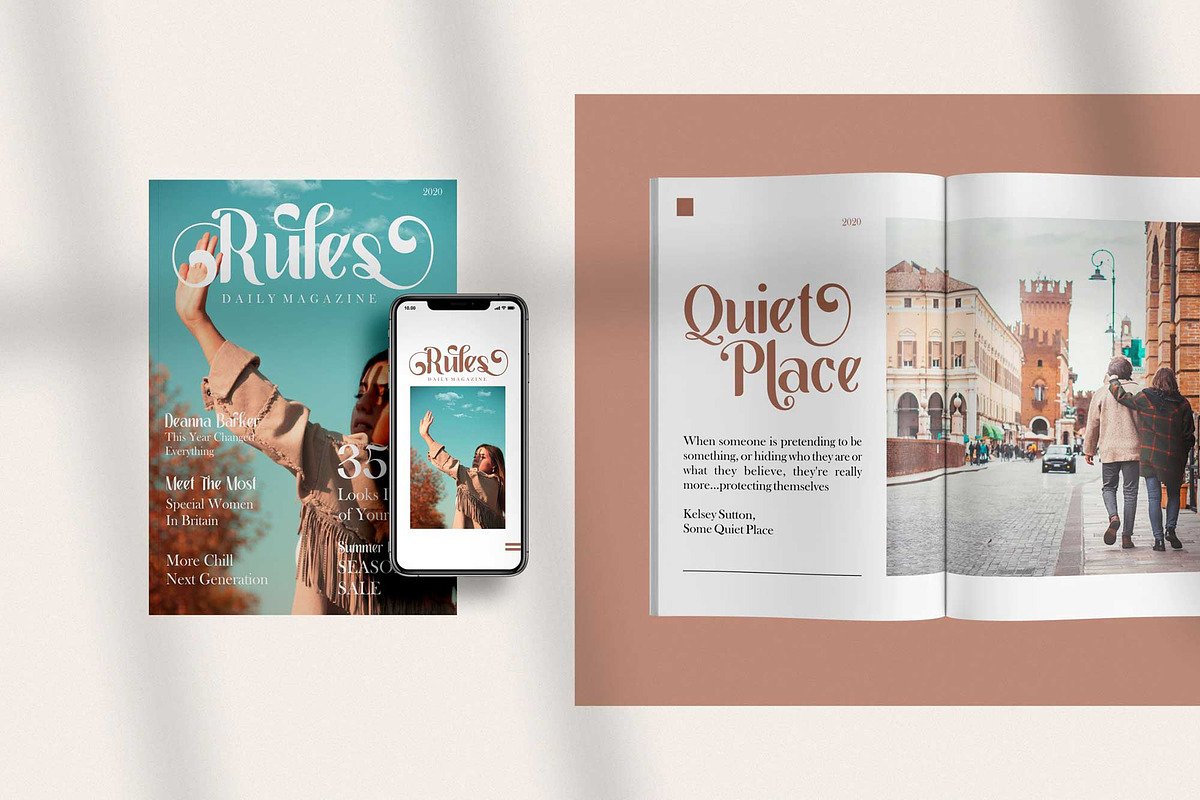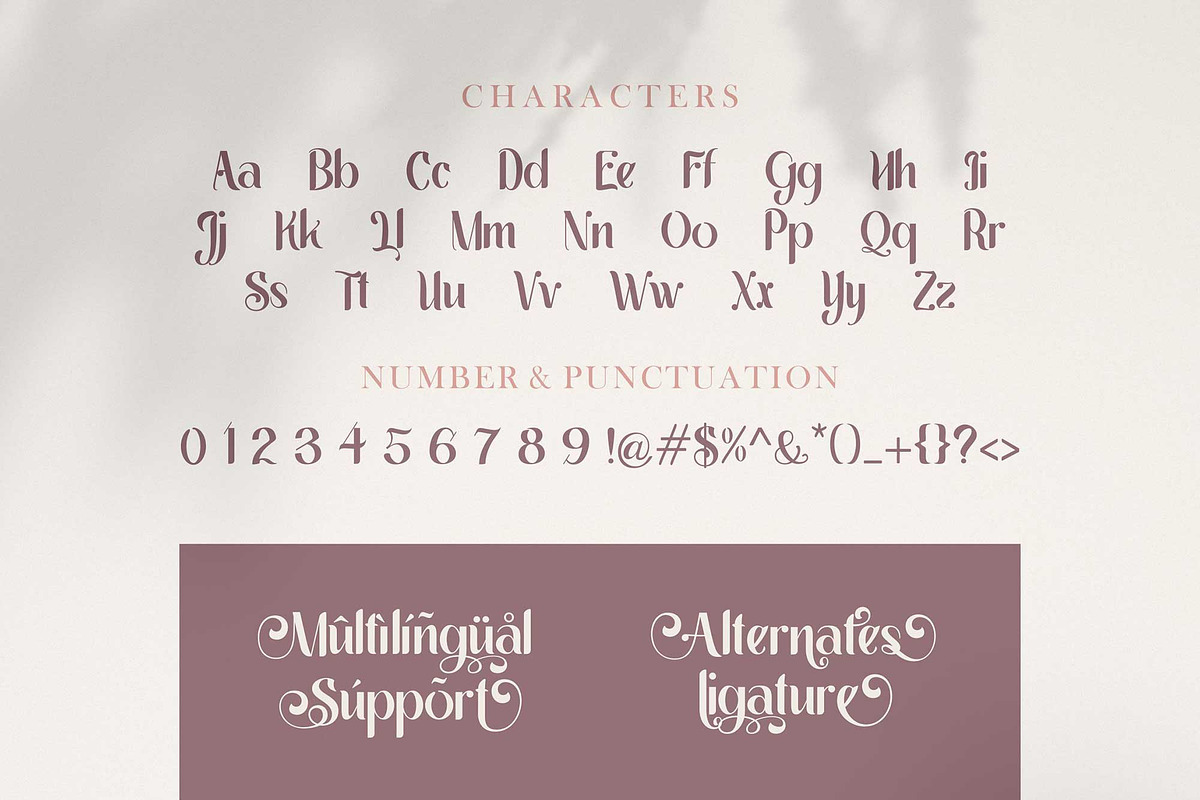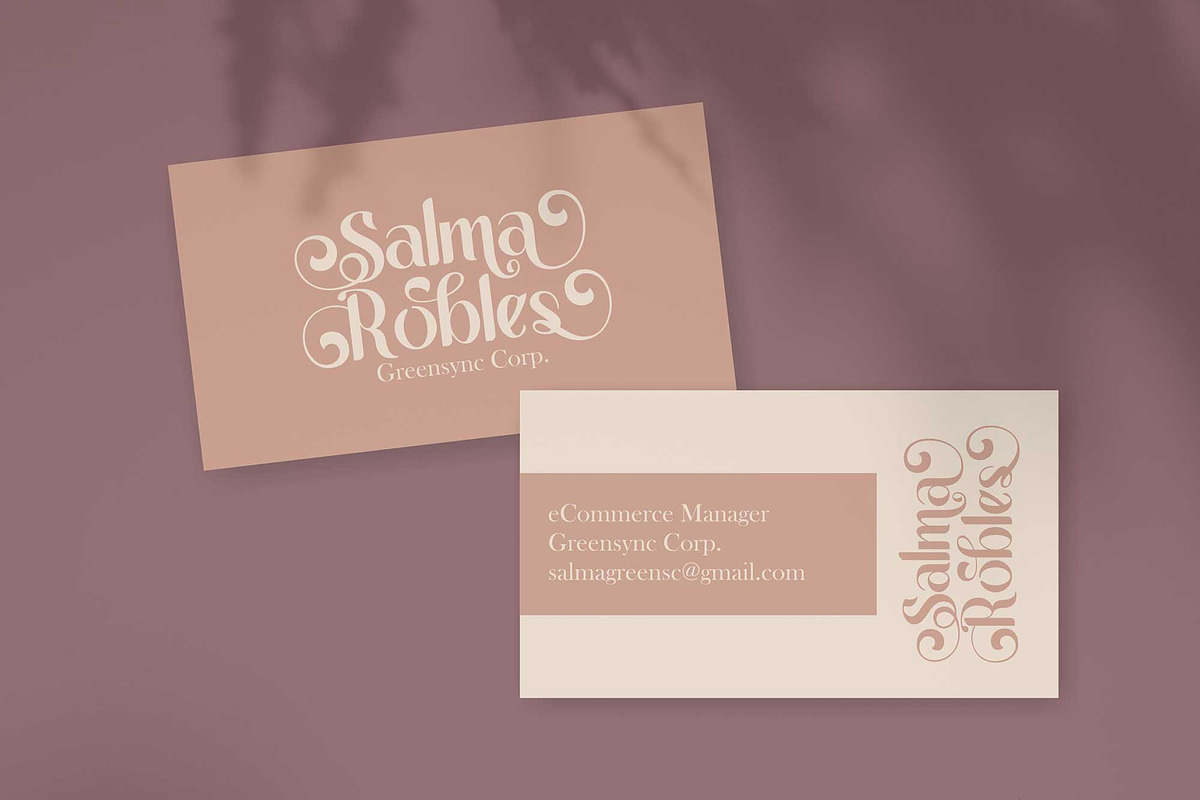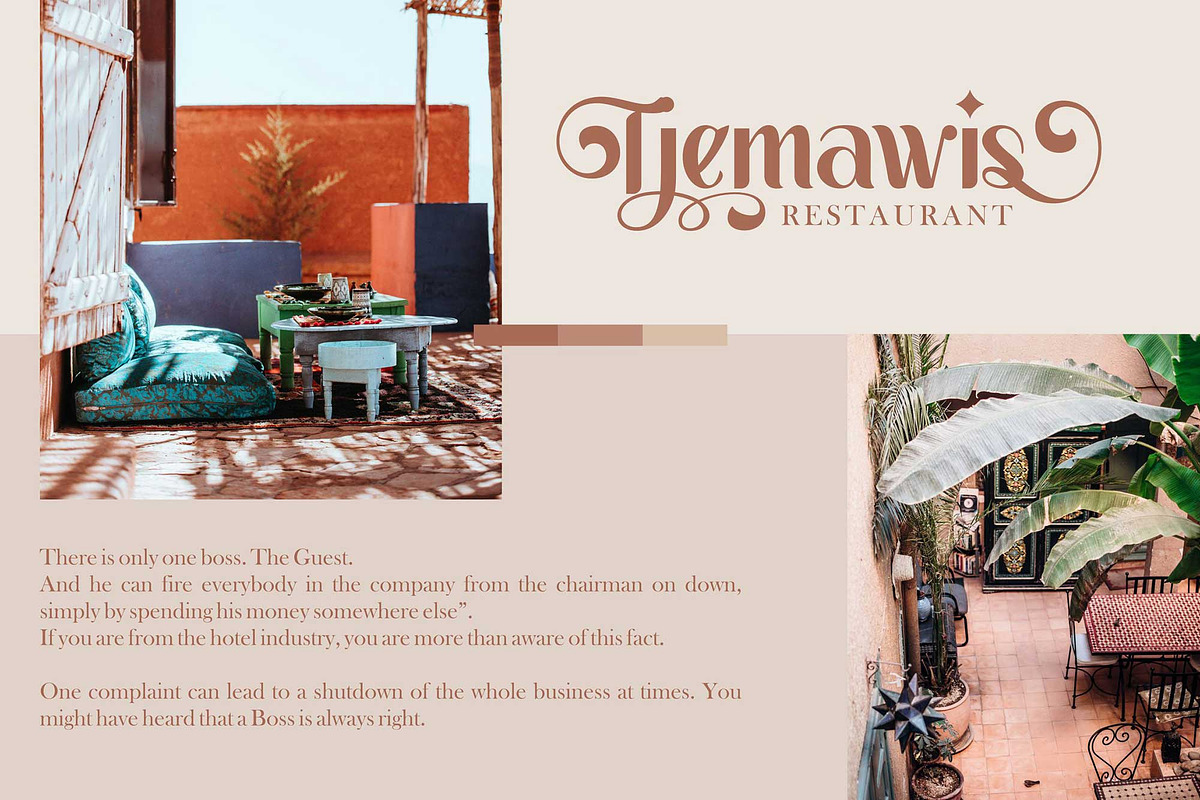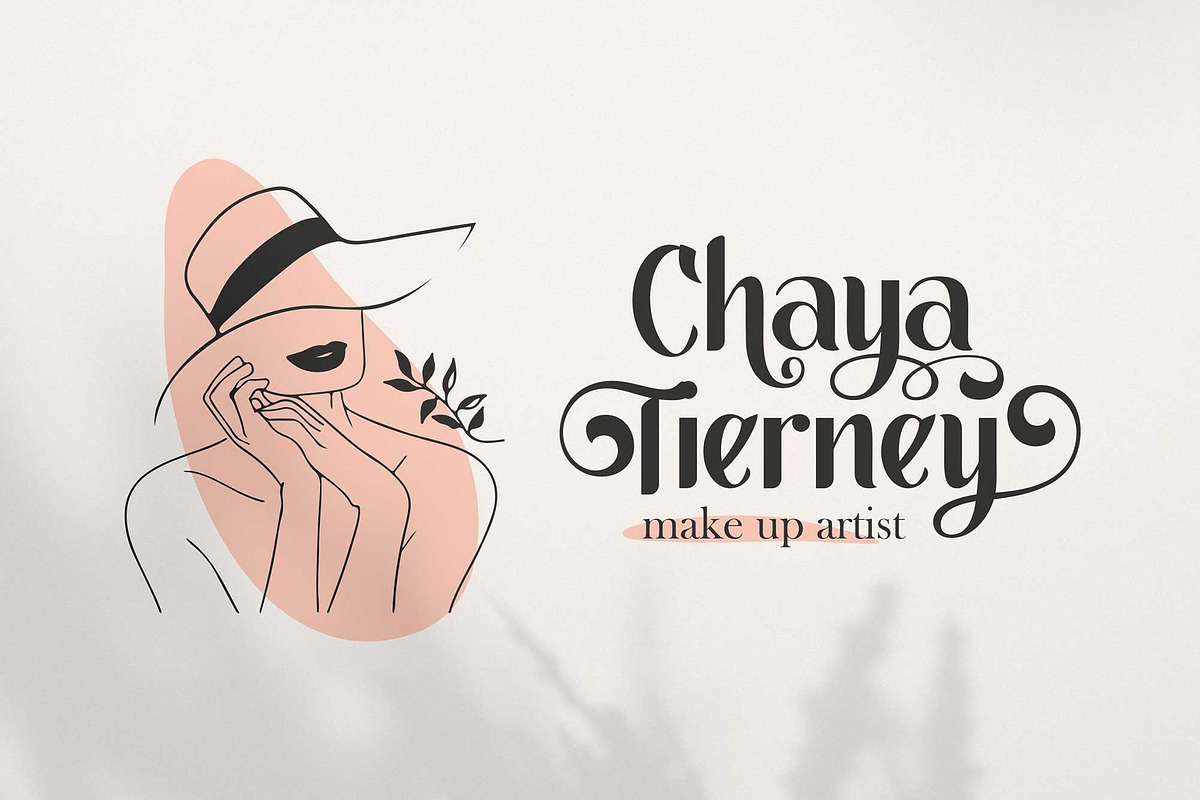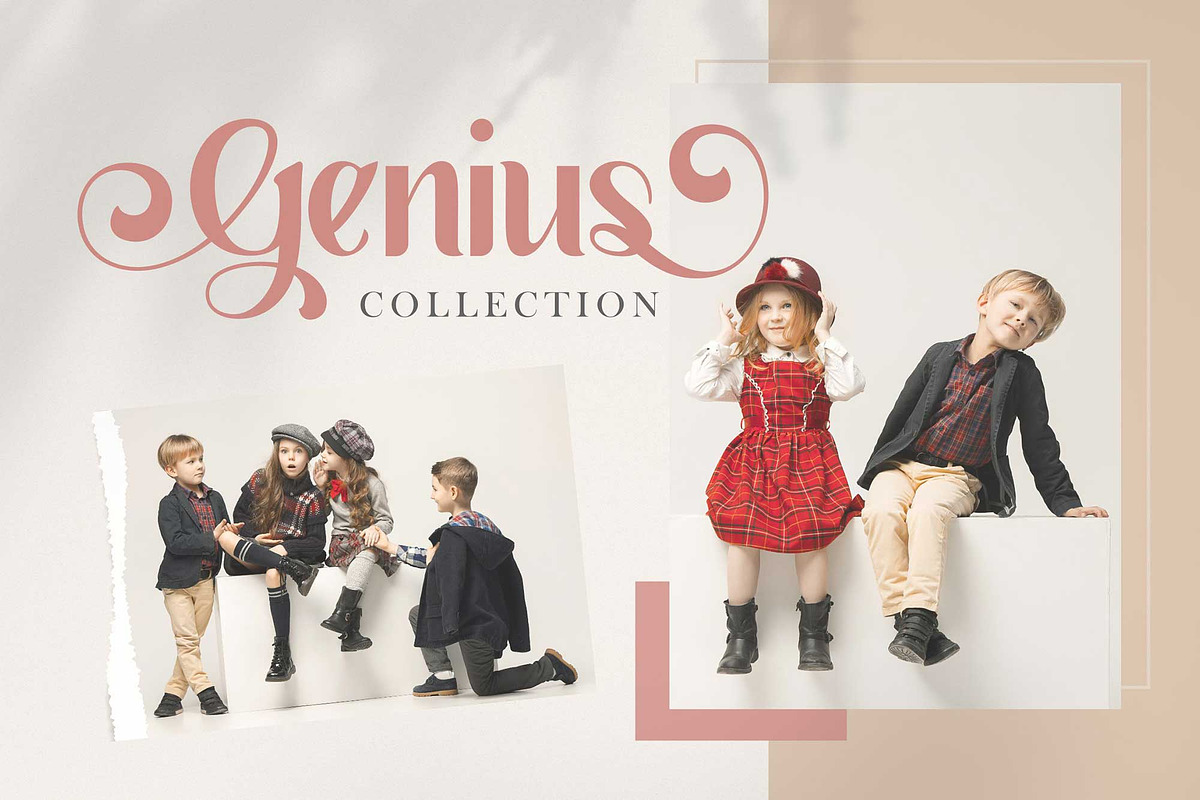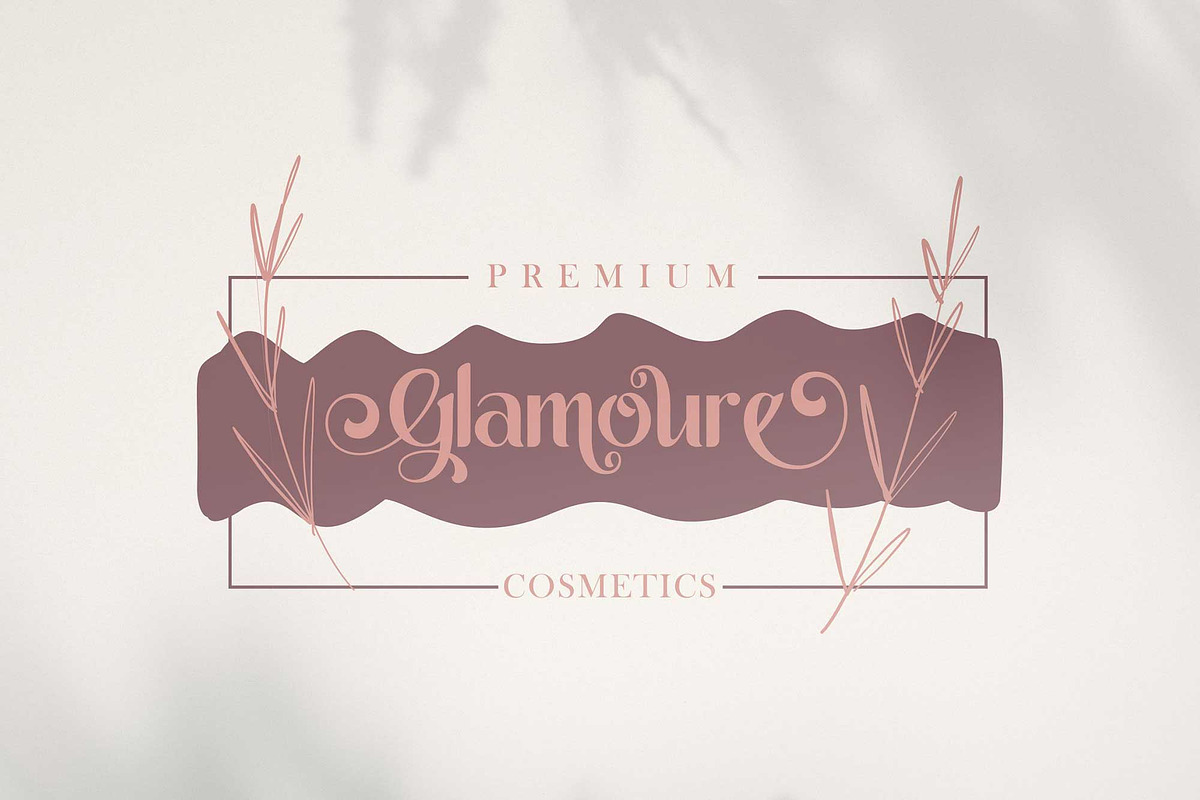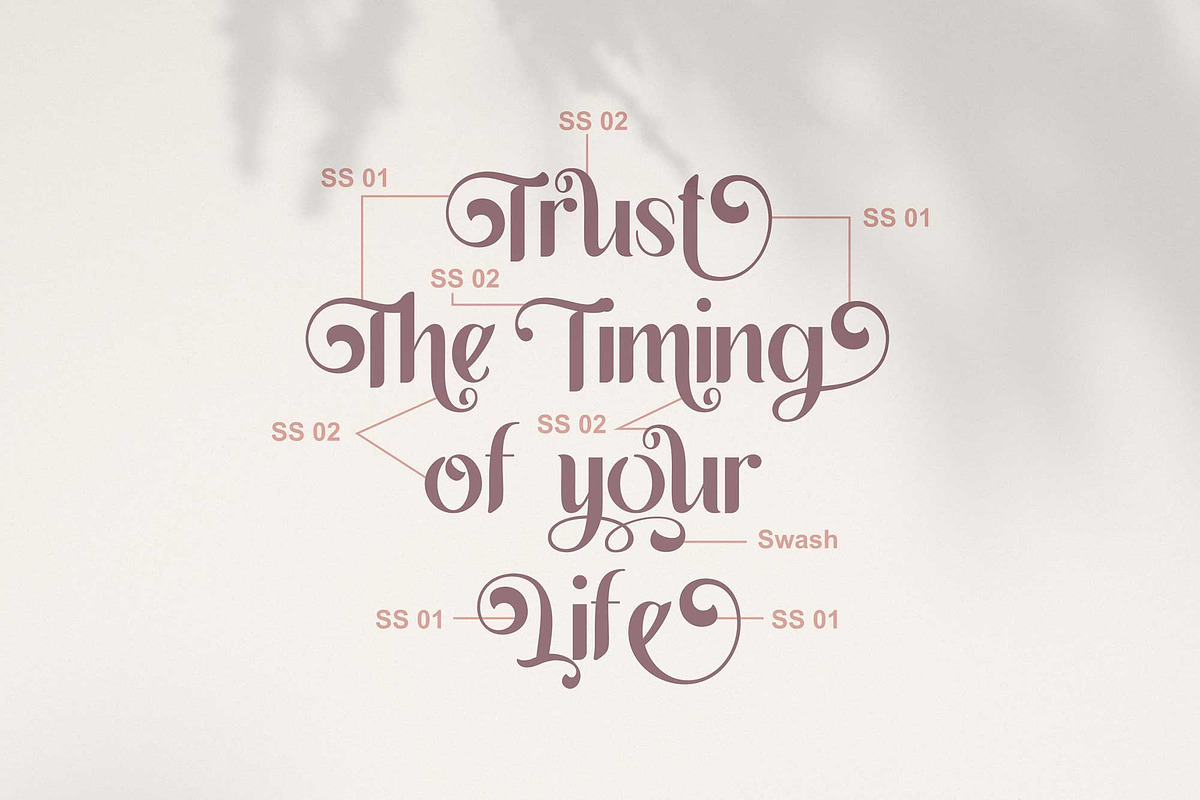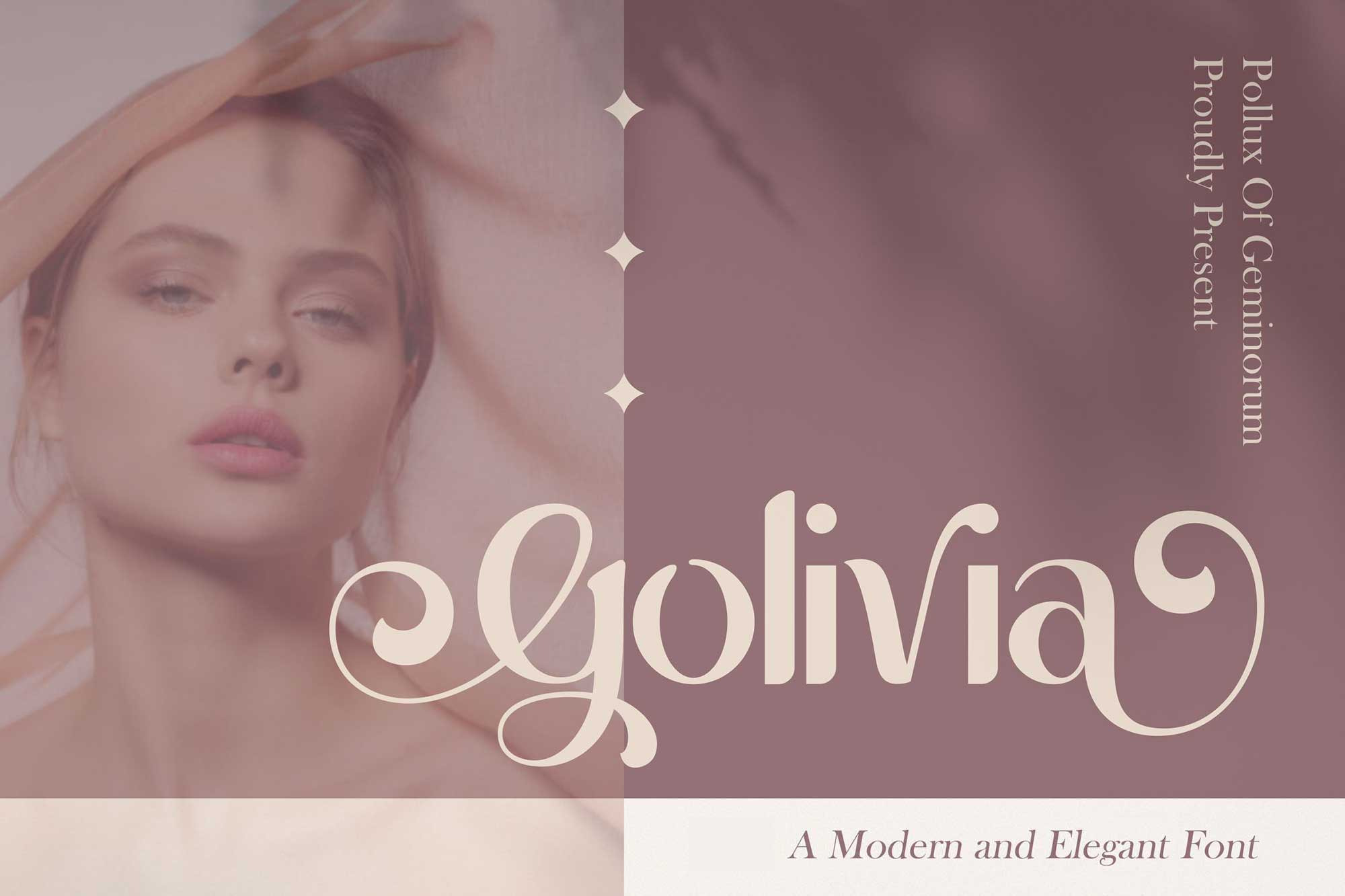
Golivia - Modern Display Font
Embody sophistication and timeless appeal with Golivia, a modern elegant display font meticulously crafted for high-end branding and aesthetic excellence. With its sleek lines and graceful decorative swashes, this typeface offers an instant "designer touch" to any creative project.
Golivia is the perfect solution for designers seeking a balance between contemporary minimalism and classic luxury. It shines in versatile applications—from editorial layouts for fashion magazines and romantic wedding invitations to chic social media content and professional logo identities for the beauty industry.
Why Designers Love Golivia:
- Exquisite Swashes & Alternates: Includes multiple stylistic sets (SS01, SS02) and swashes to create custom, hand-lettered looks effortlessly.
- Refined Aesthetics: Specifically designed to look stunning in large display sizes and elegant branding materials.
- Smart Ligatures: Built-in ligatures ensure your text flows naturally and professionally.
- Global Ready: Full multilingual support to help your brand reach an international audience.
- Comprehensive Character Set (A-Z, a-z, Numbers, Punctuation)
- Stylistic Alternates, Sets, and Swashes
- Standard Ligatures & Multilingual Support